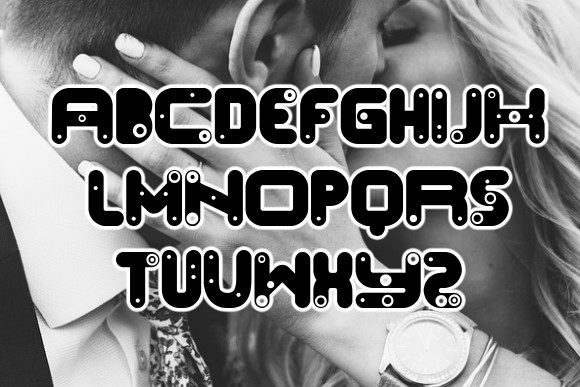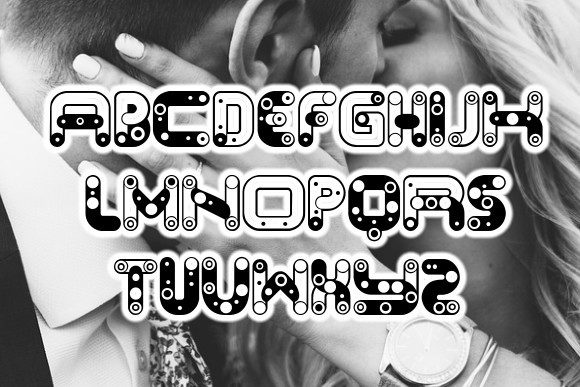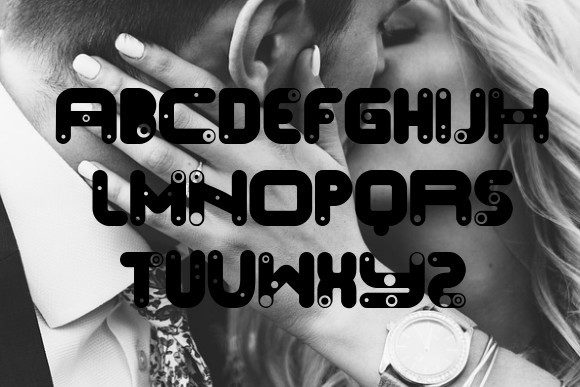
Introduction to Inclination Font
Do you remember the moment when you finally found the perfect font to elevate your creative project? The one that makes your design stand out, and tells a story without saying a word? For designers, this moment is pure magic. It’s the spark that sets their imagination ablaze, and drives them to create something truly remarkable. For many, that moment came when they discovered the Inclination Font.
This beautifully designed decorative font has been a game-changer for designers looking to add a unique touch to their projects. With its high quality and versatility, the Inclination Font is the perfect design resource for anyone looking to take their creative work to the next level. Whether you’re working on a project with a transparent background or need a font that can handle bold, eye-catching typography, the Inclination Font is sure to impress.
Key Features of Inclination Font
- Unique, modern design with a transparent background for versatility
- High-resolution design suitable for print and digital applications
- Perfect for designers and artists seeking a distinctive, creative font
Honest Review: Inclination Font
As a designer, I’m always on the lookout for high-quality design resources that can elevate my creative projects. Recently, I came across the Inclination Font, and I must say it’s been a pleasant surprise.
Here are some of the things that work well with this font:
- ✨ Unique and modern design aesthetic that’s perfect for creative projects
- ✨ High-quality vector graphics that look great on any background, even transparent ones
- ✨ Extremely versatile and can be used for a wide range of design applications
- ⚠️ Limited character set, which may not be ideal for long-form text
- ⚠️ Not suitable for use in small font sizes, as it can become difficult to read
Overall, I’m impressed with the Inclination Font, and I think it’s a valuable addition to any designer’s toolkit. Its unique design aesthetic and high-quality graphics make it perfect for creative projects, and the fact that it’s free to download is just the icing on the cake.
Getting the Most Out of Inclination Font
For the best results, use Inclination Font in conjunction with other high-quality design resources. This will help you create a cohesive and visually appealing design. Additionally, consider experimenting with different font sizes, colors, and transparencies to find the perfect look for your project.
Inclination Font is ideal for a variety of creative projects, including logos, brochures, and social media graphics. It’s also a great resource for designers who need a unique and modern font for their designs. With its high-quality design and transparent background, Inclination Font is a valuable addition to any design toolkit.
What makes Inclination Font a high-quality design resource?
Inclination Font is a high-quality design resource due to its precise letterforms, extensive character set, and advanced typographic features. The font has been carefully crafted to provide a unique and sophisticated look that is perfect for a wide range of creative projects.